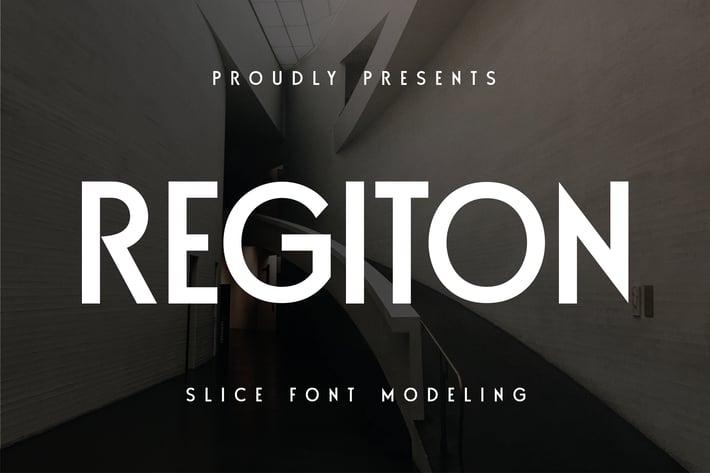
Regiton Font
Unleash the power, agility, and resilience embedded within this typeface. With each stroke, the defining sharpness and vigor of this font magnify, returning a robust character that is distinctly yours. This versatile font breathes life into tabloid articles, amplifies the essence of product descriptions, and imparts a formidable identity to your brand. Experience the revolution in typography, thanks to this font. Appreciate the strength, appreciate you.